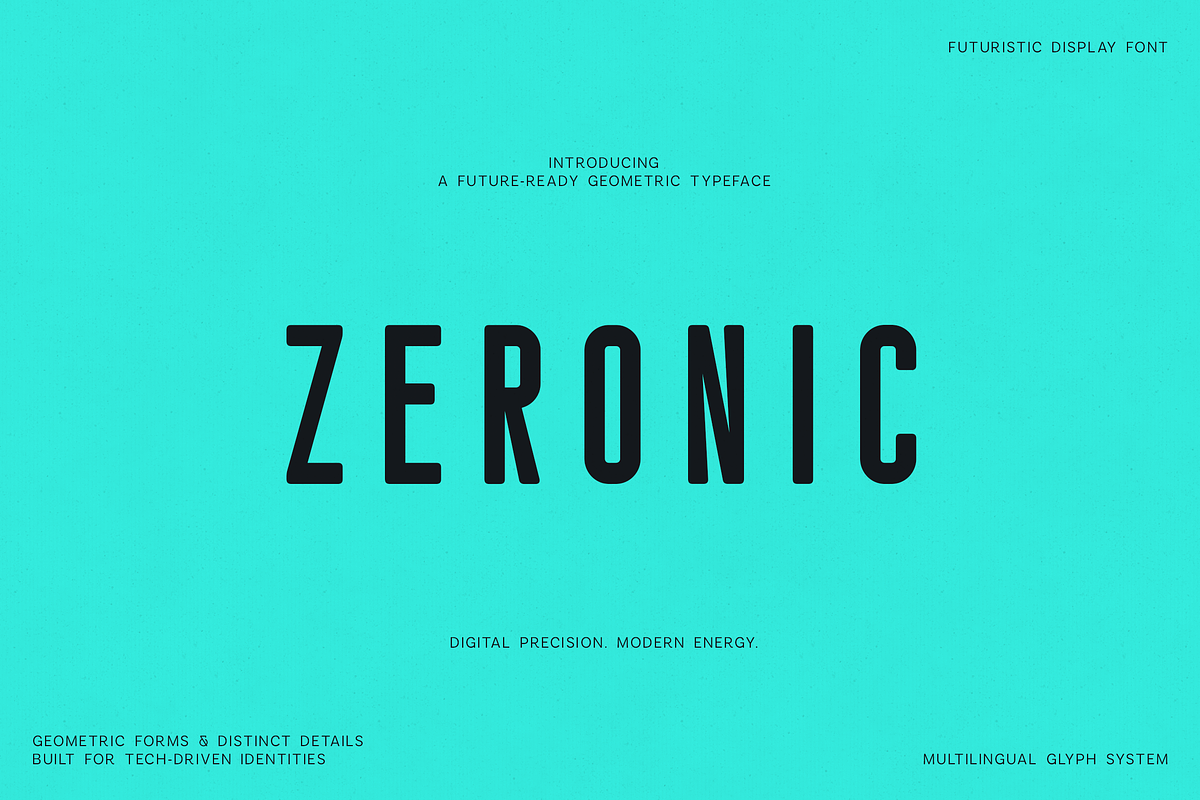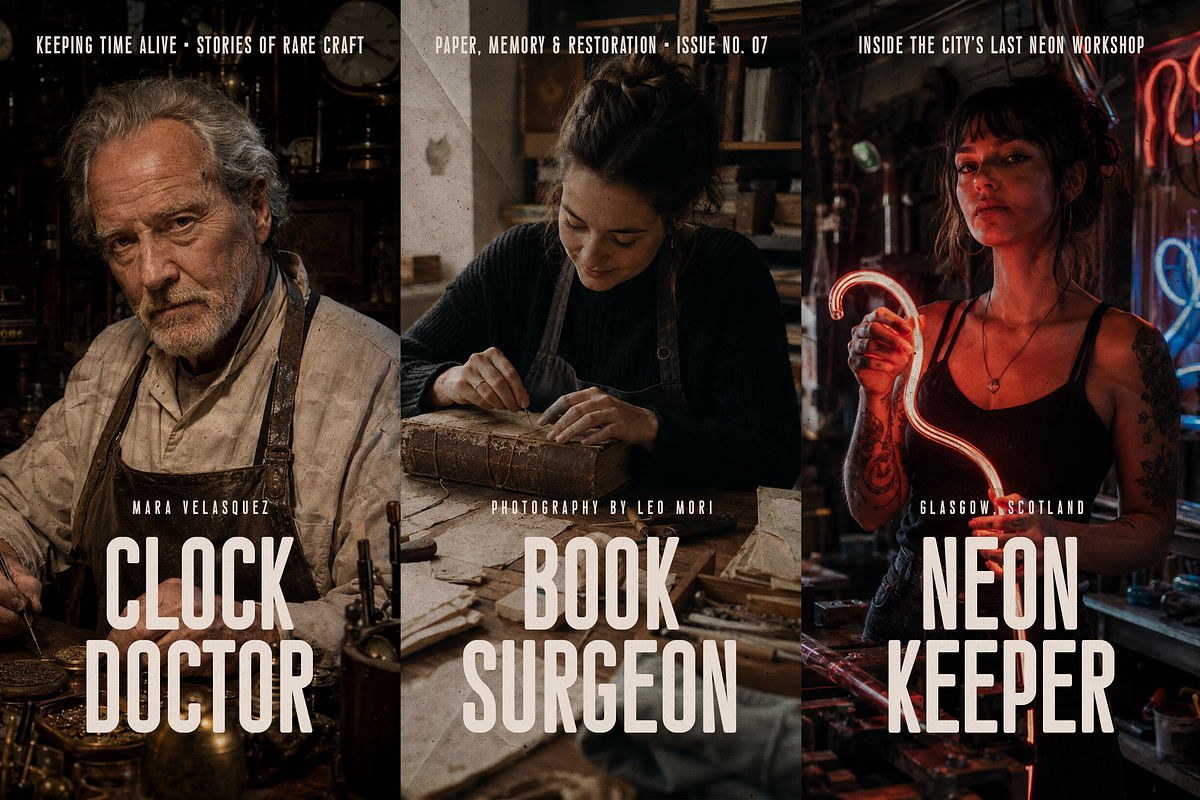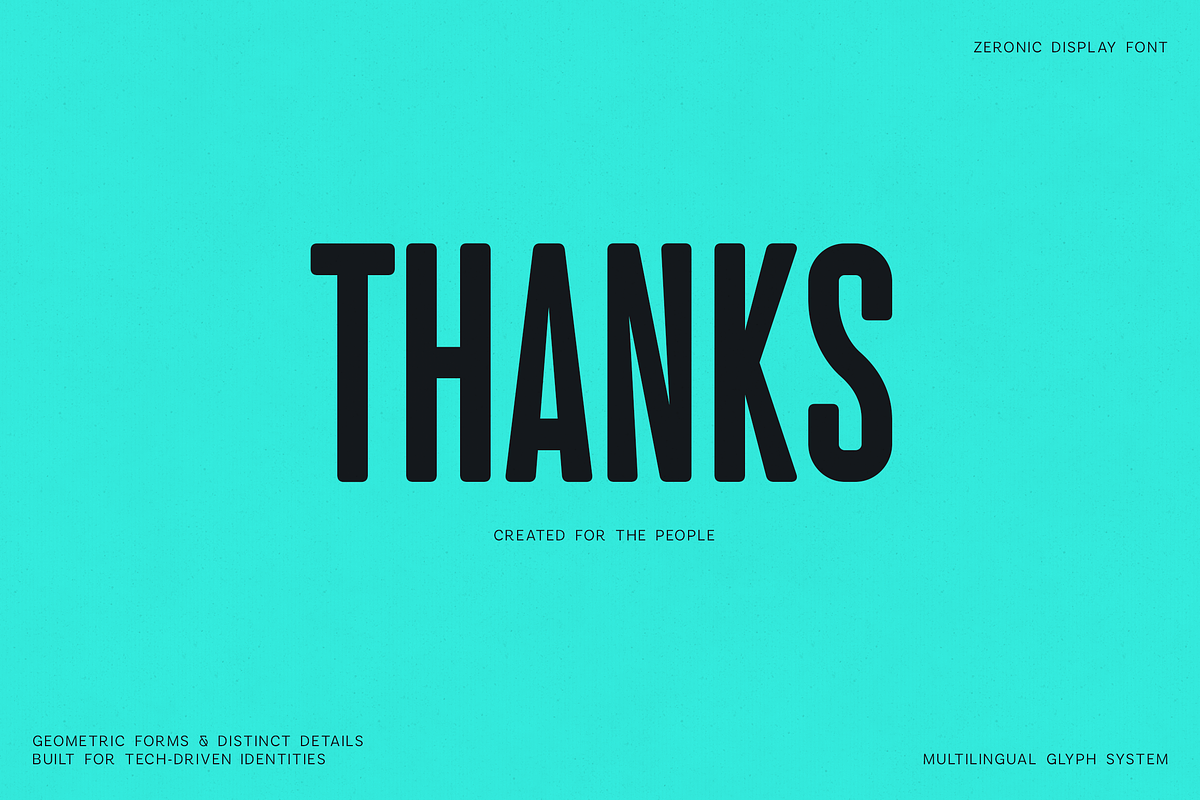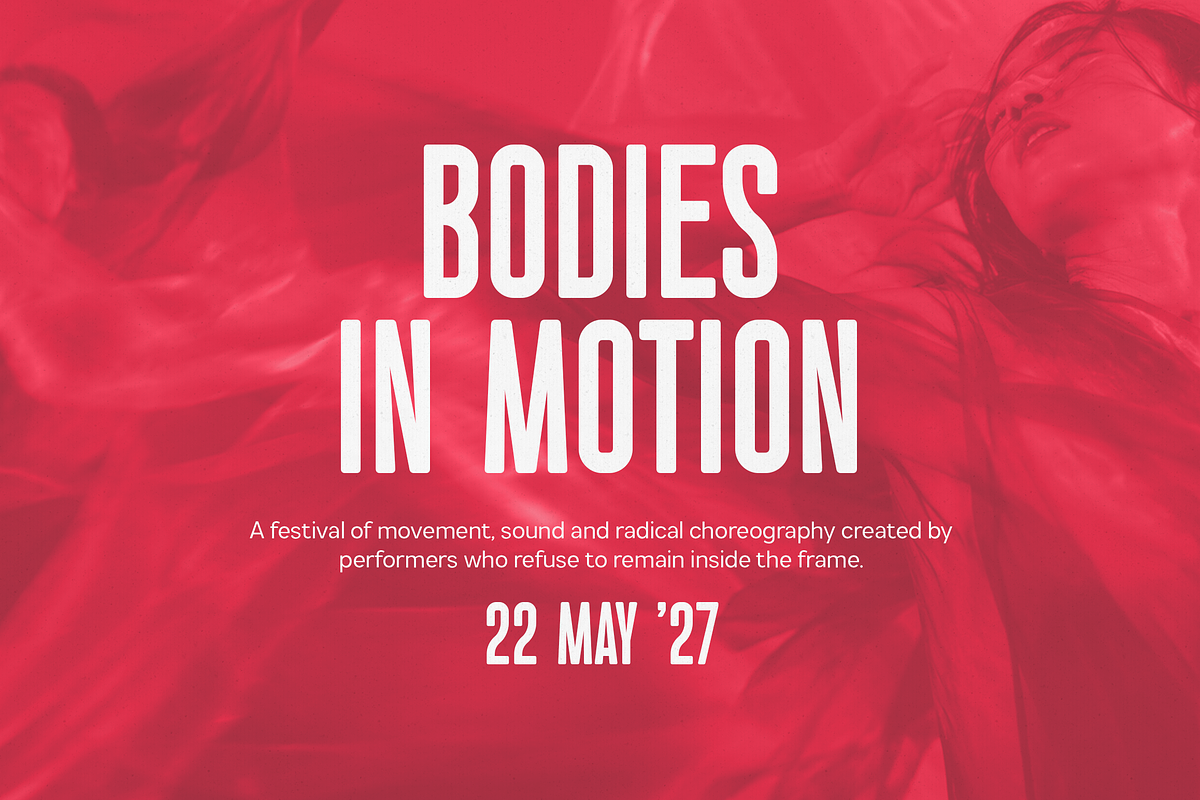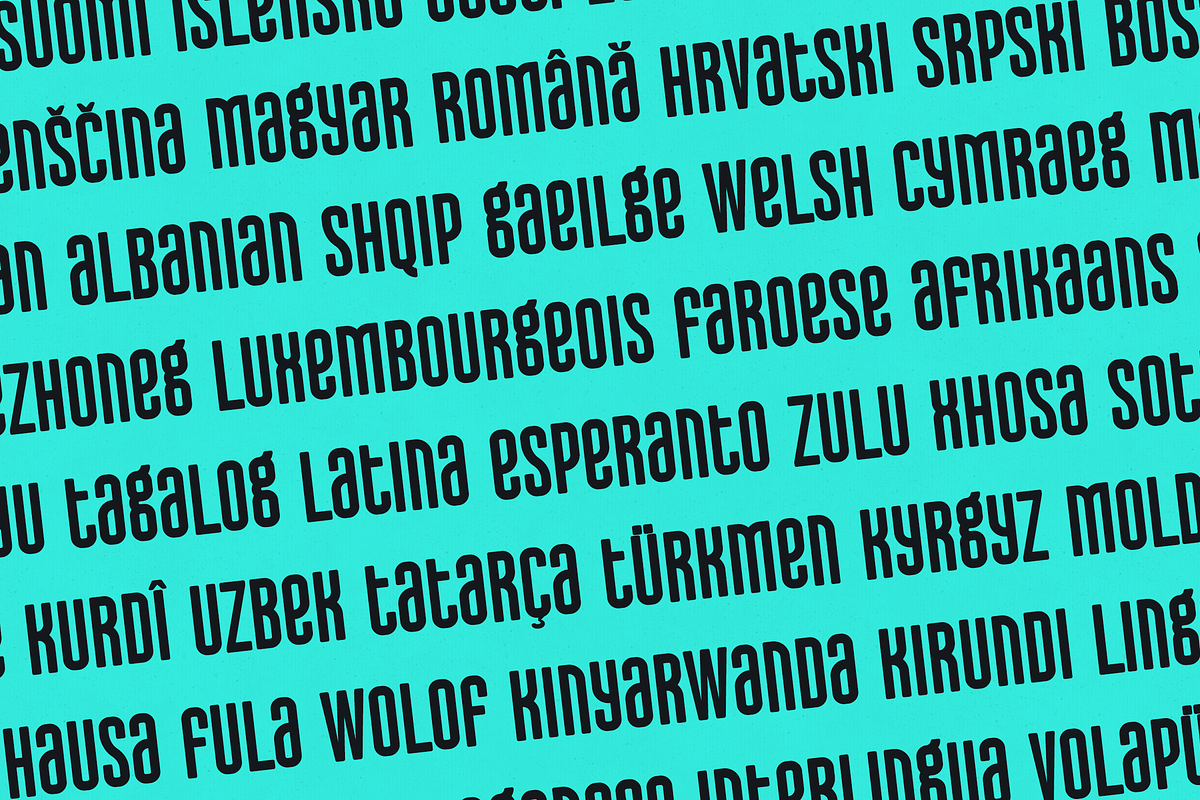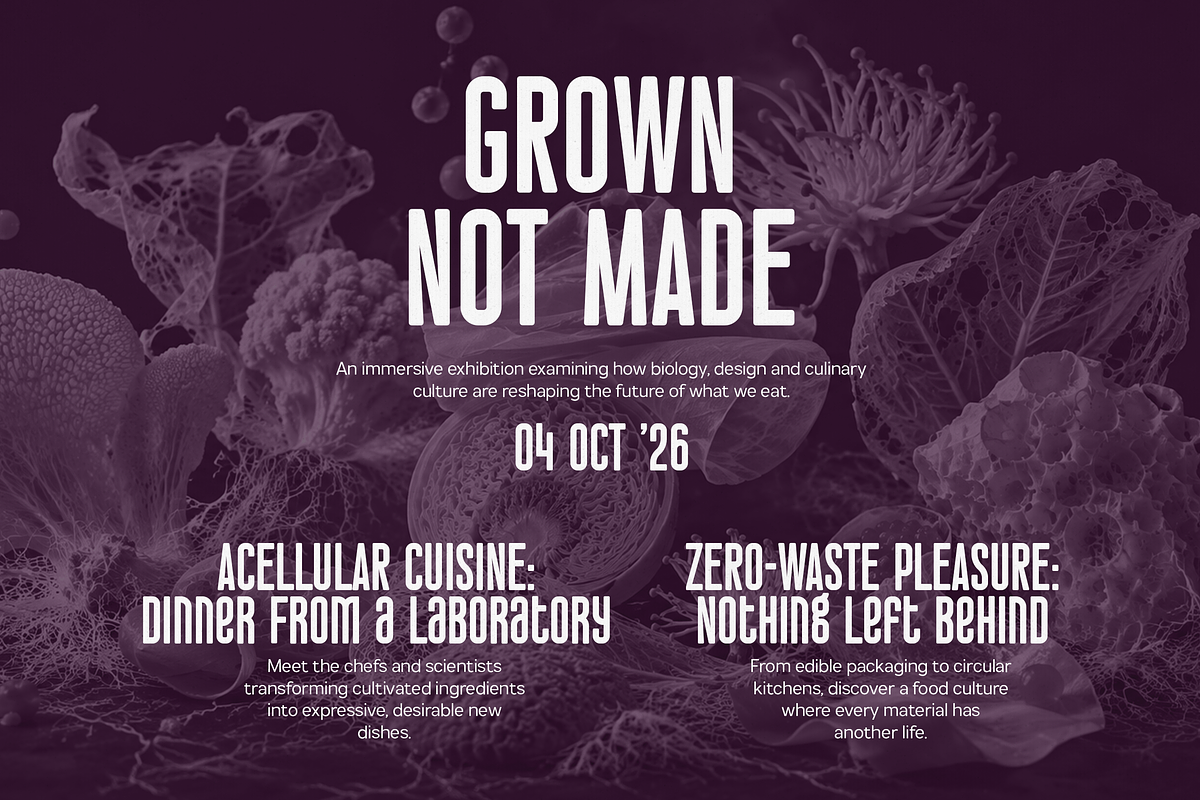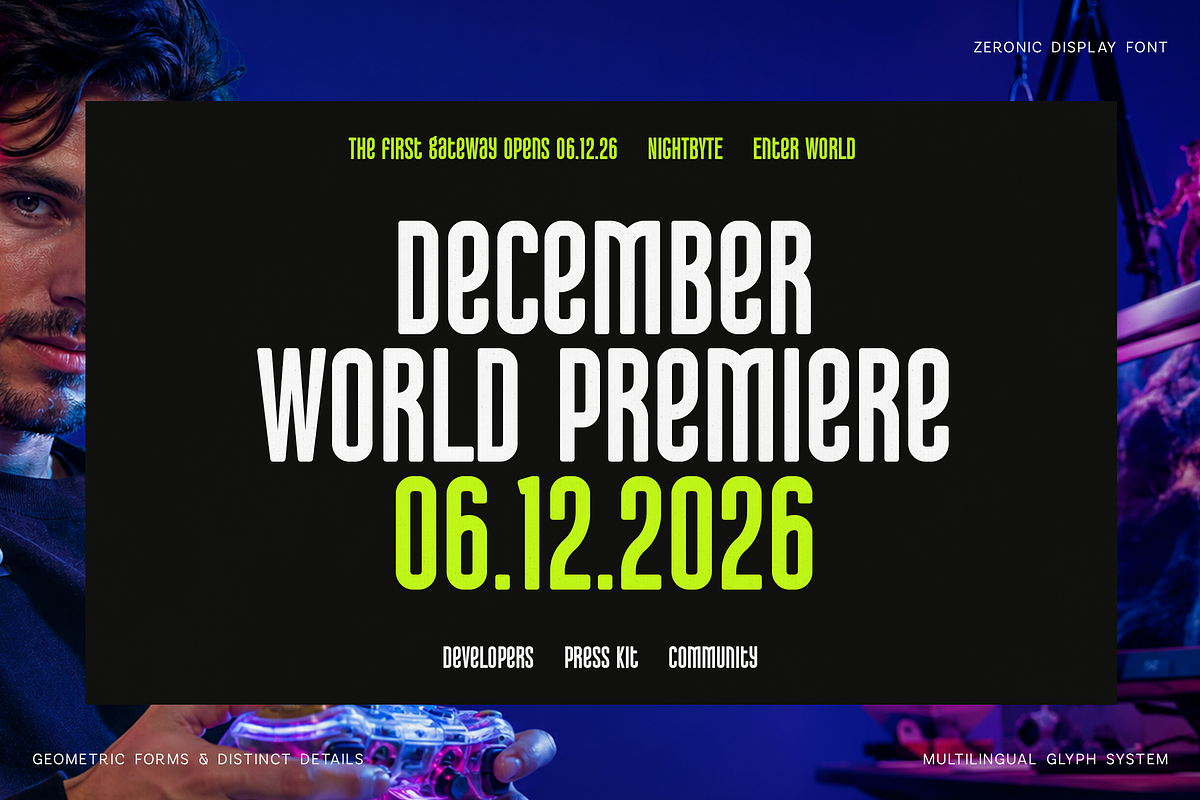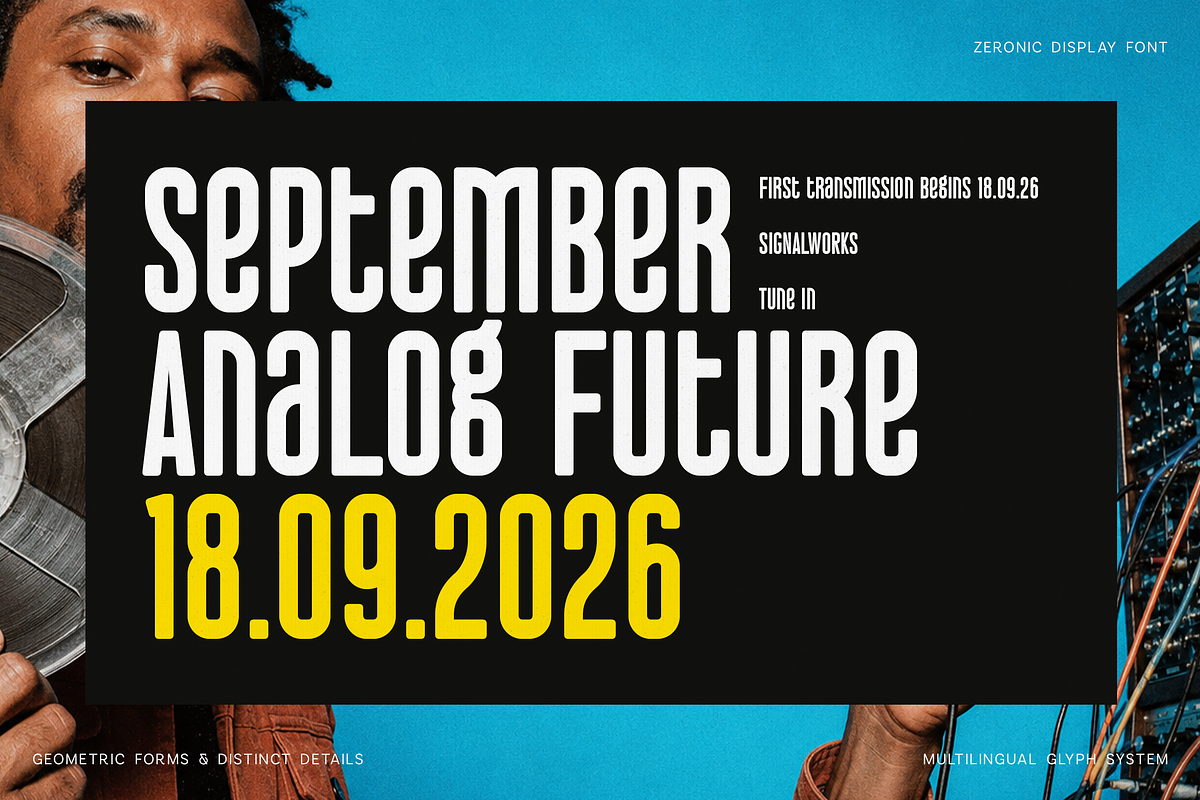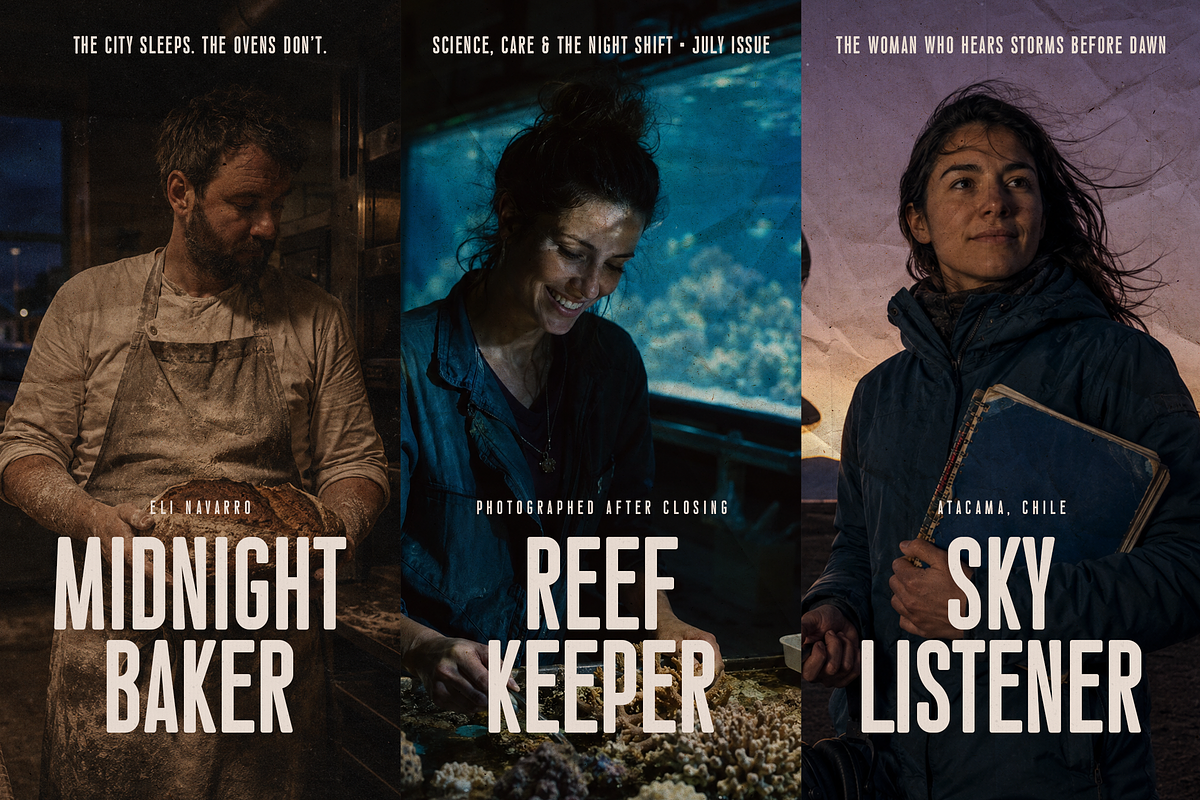
Zeronic Futuristic Display Font
Zeronic is a futuristic condensed display font built for bold, high-impact typography. Its tall geometric letterforms, narrow proportions and distinctive digital details create a strong visual identity inspired by science fiction, technology, industrial design and experimental editorial graphics.
Designed to command attention at large sizes, Zeronic is ideal for posters, album covers, gaming titles, technology branding, magazine layouts, event graphics, packaging, logos, film titles and social media campaigns. Its compact structure allows you to create powerful headlines while fitting more text into limited spaces.
The font includes uppercase and lowercase letters, numerals, punctuation, symbols and extensive multilingual support, making it suitable for international creative projects. Whether used for a futuristic campaign, underground music release or contemporary fashion identity, Zeronic delivers a sharp and memorable typographic presence.